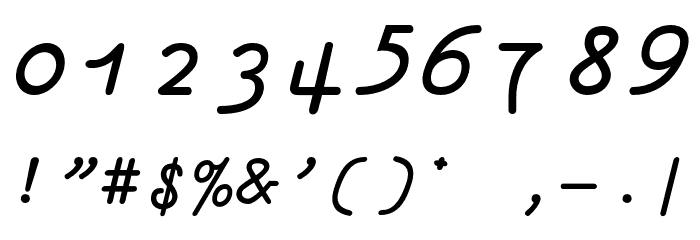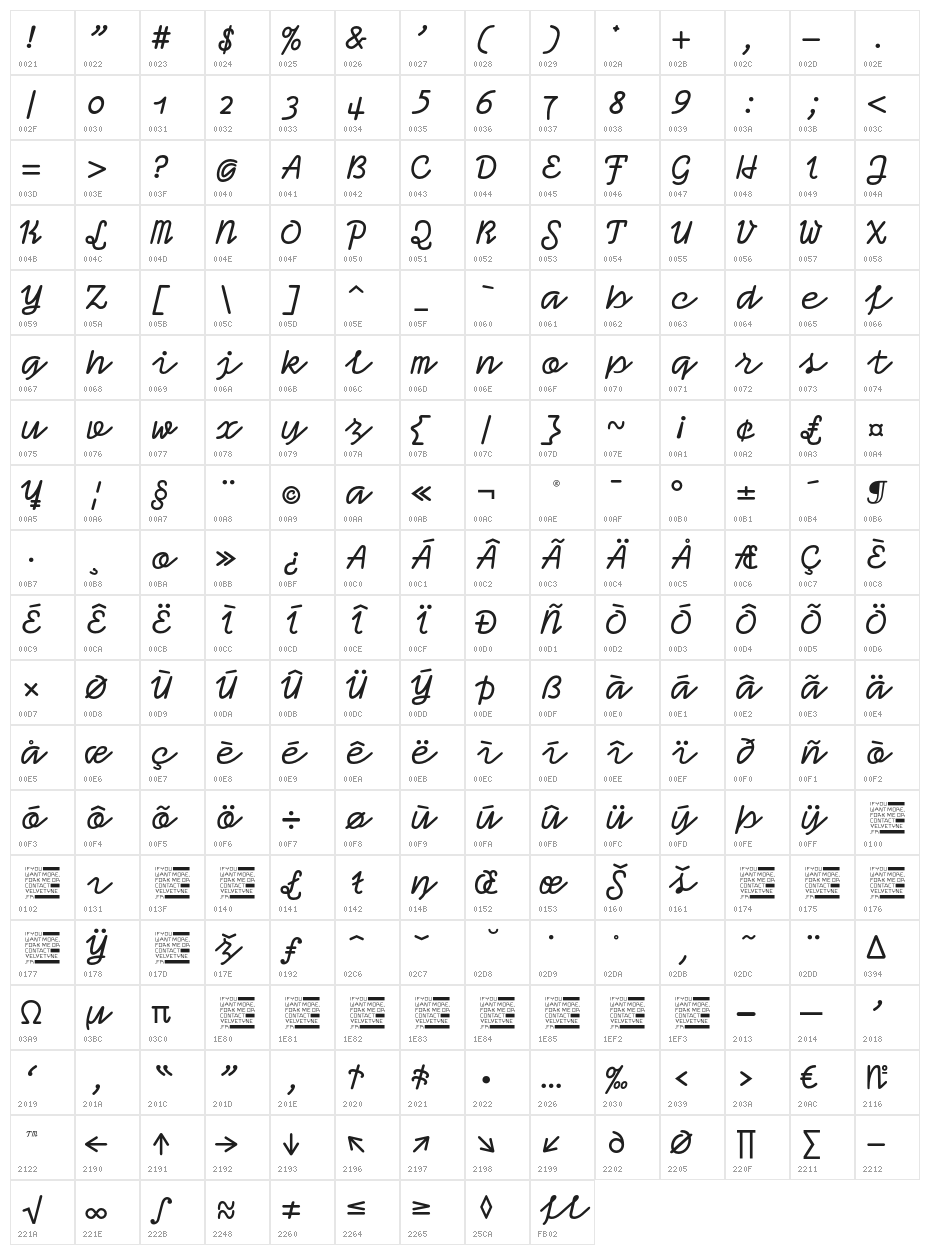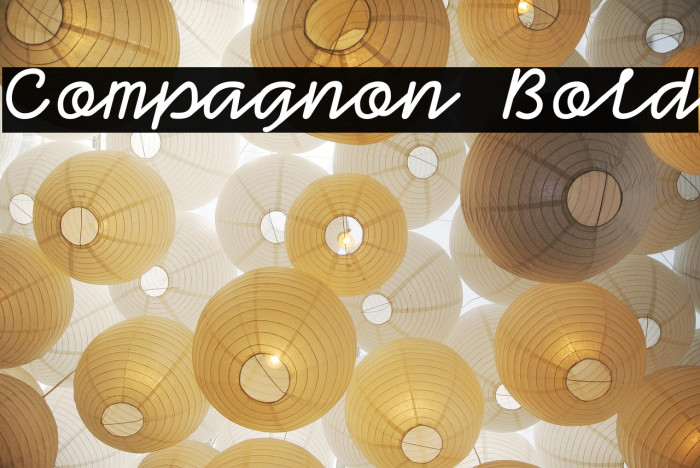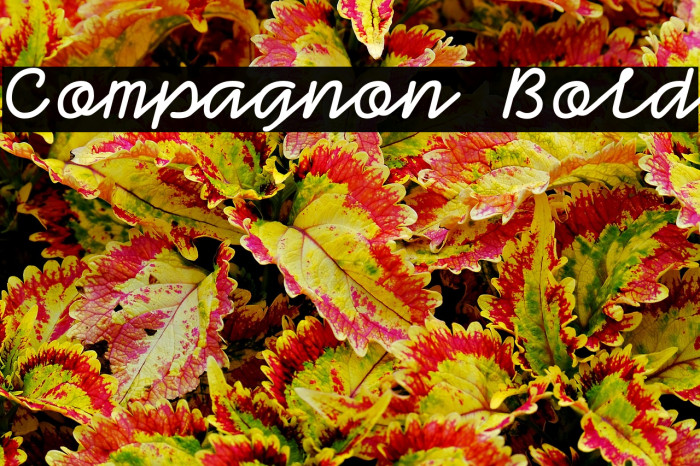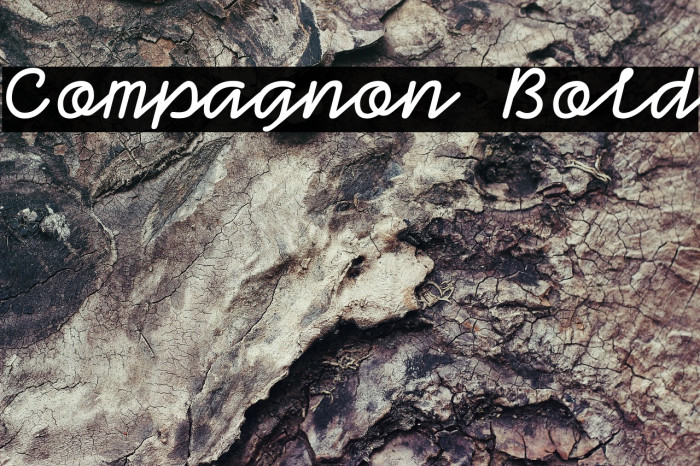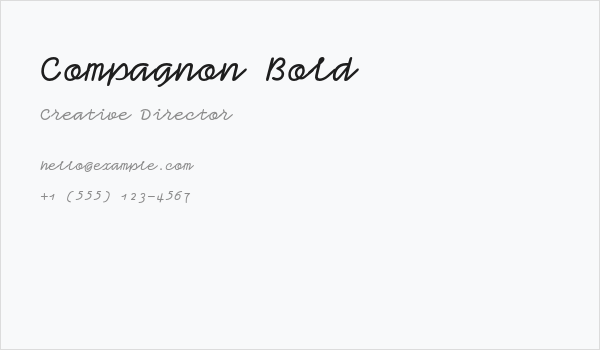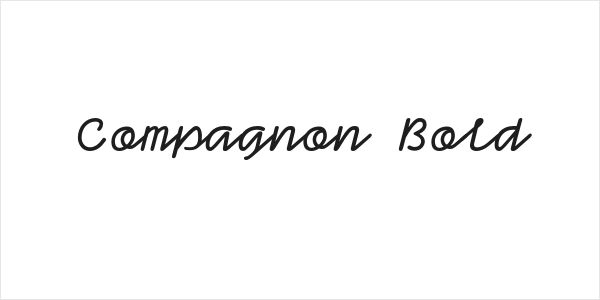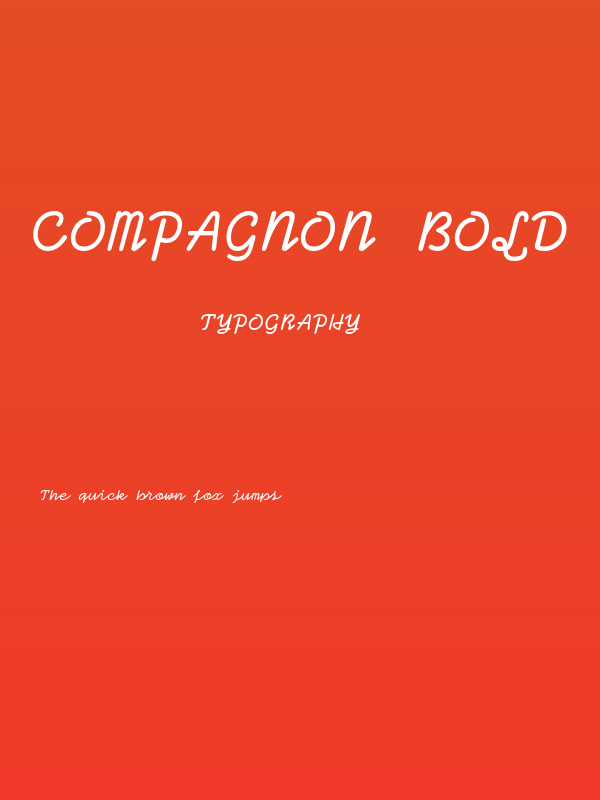
Compagnon Bold Font
Compagnon Bold Description
This font features a bold and flowing script style that exudes a sense of elegance and fluidity. The characters are interconnected, giving it a cohesive and continuous appearance. The uppercase letters maintain a consistent height, while the lowercase letters have a slight slant, enhancing the cursive nature of the font. The numerals are clear and distinct, matching the overall style. Special characters are well-integrated, maintaining the script's aesthetic. This font is ideal for projects that require a touch of sophistication and personal flair.
| Use Case | Logos, Invitations, Personal stationery |
| Proposed Projects | Ideal for wedding invitations, greeting cards, elegant branding, and personal stationery. |